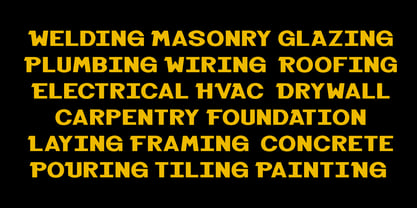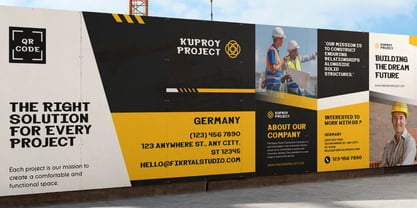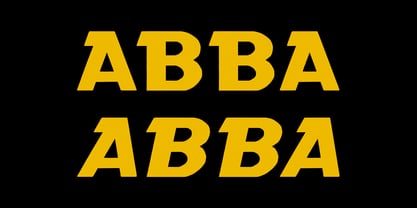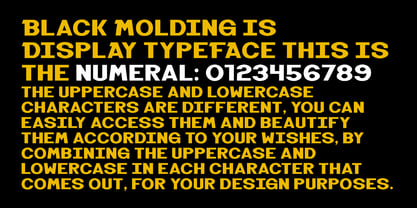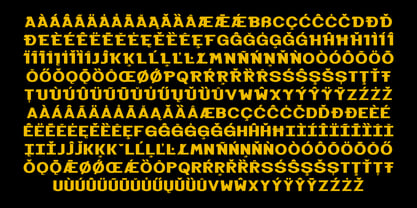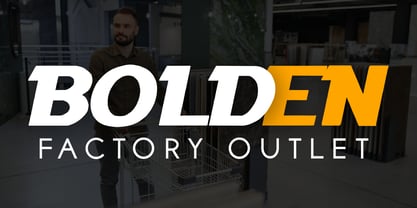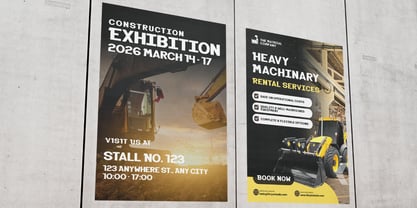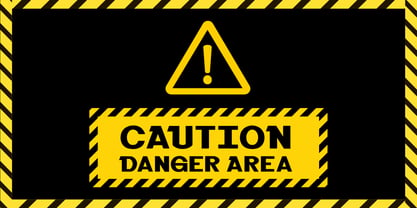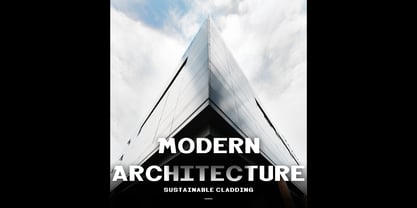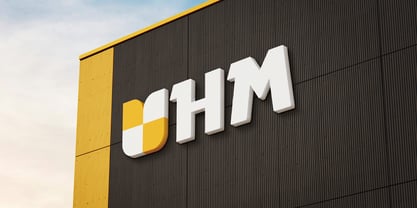
Black Molding
by Fikryal
The Black Molding Font Family was designed by Muhammad Fikry and published by Fikryal. Black Molding contains 2 styles and family package options. More about this family
Black Molding is an industrial display sans serif font crafted for professional construction and engineering use. Featuring an all-caps design with Regular and Italic styles, this typeface delivers a strong, mechanical, and corporate character. Uppercase and lowercase characters are designed with different forms, allowing designers to mix both sets freely to create unique typographic compositions while maintaining a consistent industrial aesthetic. Perfect for construction branding, infrastructure projects, industrial logos, signage, posters, and corporate identity systems, Black Molding is a reliable choice for bold and authoritative visual communication.
Designers: Muhammad Fikry
Foundry: Fikryal